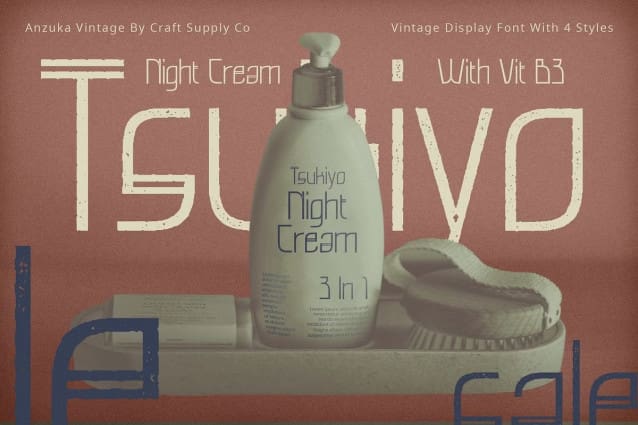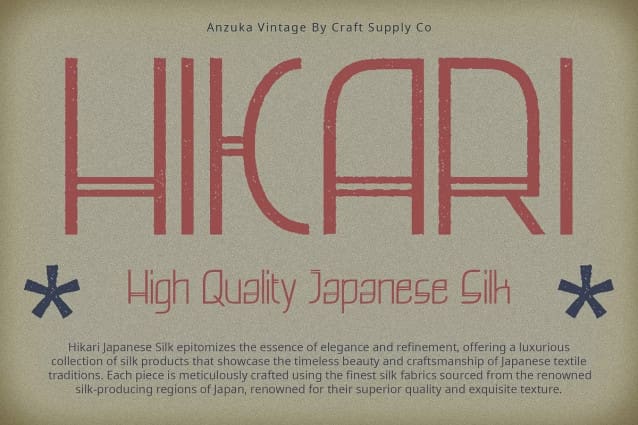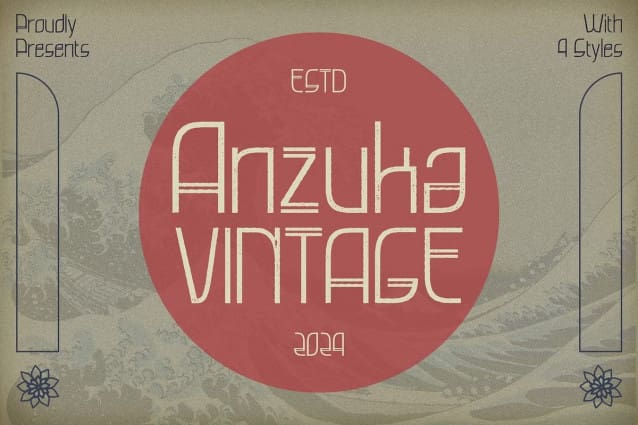
Anzuka Vintage Font
Anzuka Vintage Font: A Tribute to Art Deco Elegance. Geometric Display Design Anzuka Vintage boasts a striking geometric display design, drawing inspiration from the iconic Art Deco movement. Its clean lines and bold shapes capture the essence of the era.
Vintage Effect The font is enhanced with a vintage effect, giving it a timeless appeal reminiscent of the past. With its stamp, drawn, and rough textures, Anzuka Vintage exudes character and authenticity.
Art Deco Inspiration Drawing from the golden age of design, This font pays homage to the Art Deco movement with its intricate details and geometric patterns. Each character reflects the elegance and sophistication of the era.
Versatile Application Despite its vintage-inspired design, This font is versatile in its application. Whether used for branding, packaging, posters, or signage, it adds a touch of retro charm to any project.
Timeless Elegance with a Retro Twist This font combines the geometric precision of Art Deco with vintage-inspired textures to create a font that is both elegant and nostalgic. Its versatility and classic appeal make it a valuable asset for designers seeking to evoke the glamour of yesteryears in their projects